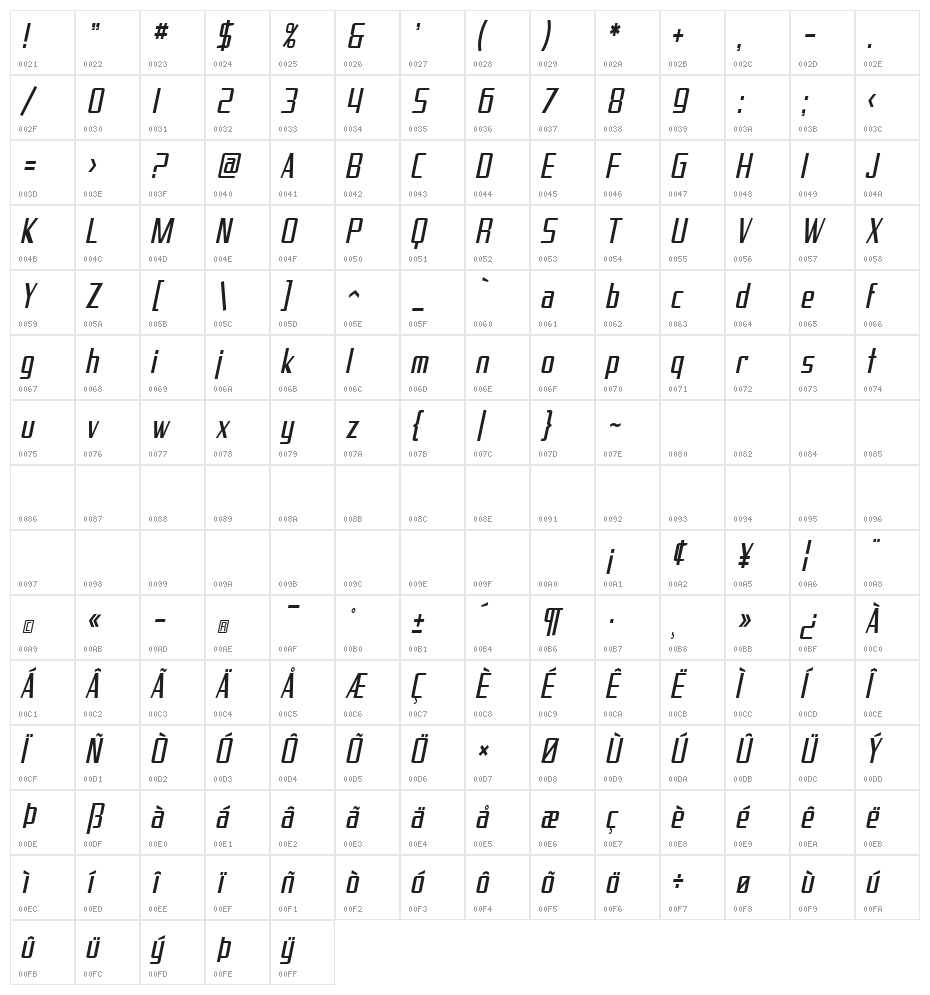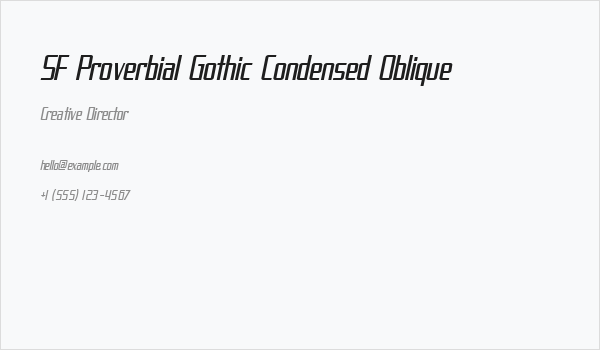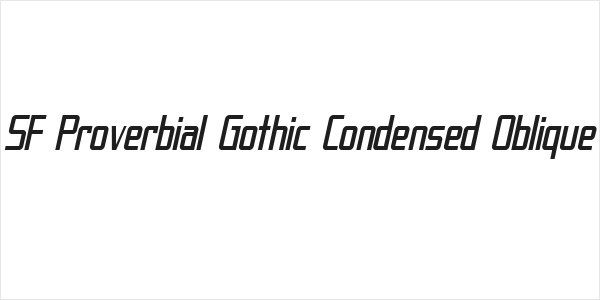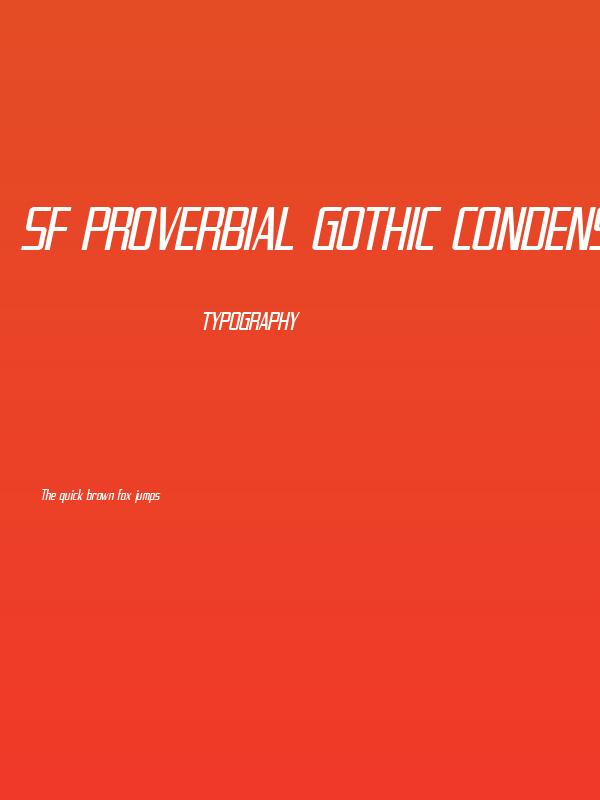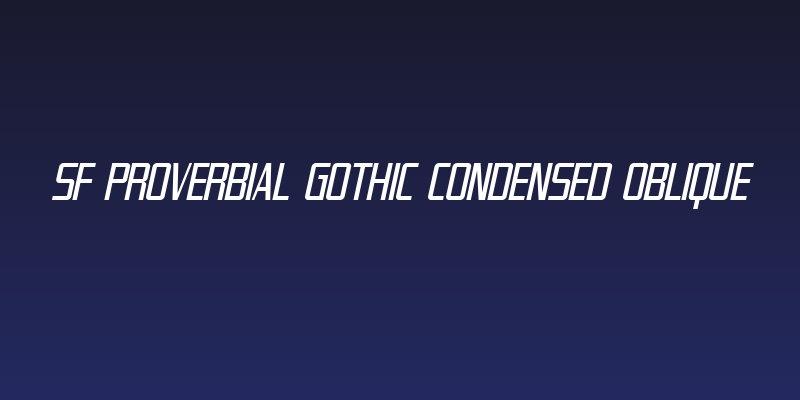
SF Proverbial Gothic Condensed Oblique Font
SF Proverbial Gothic Condensed Oblique Description
This font features a modern, condensed style with a distinct oblique slant, giving it a dynamic and forward-leaning appearance. The characters are sleek and elongated, with sharp angles and clean lines that convey a sense of speed and efficiency. The uppercase and lowercase letters maintain a consistent style, with a uniform stroke width that enhances readability. The numerals are similarly designed, ensuring clarity and balance. Special characters are included, matching the overall aesthetic with precision and style. The condensed nature of the font makes it suitable for space-saving applications while maintaining a strong visual impact.
| Use Case | Headlines, Logos, Advertising |
| Proposed Projects | Ideal for branding, advertising, and editorial design where a modern and dynamic look is desired. |